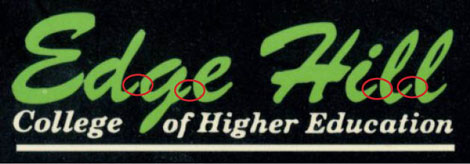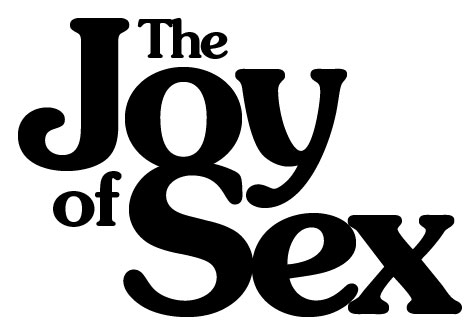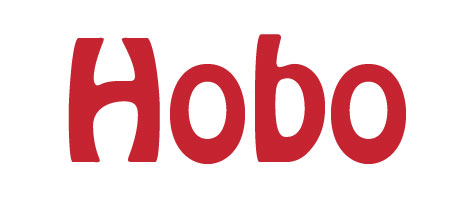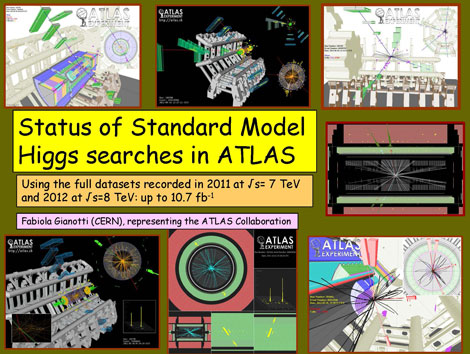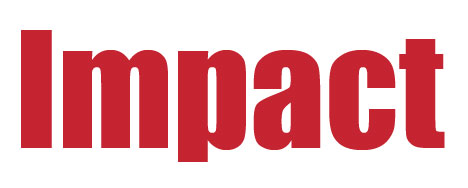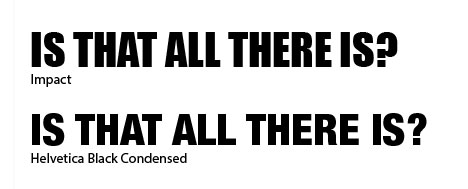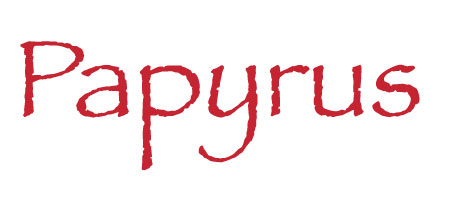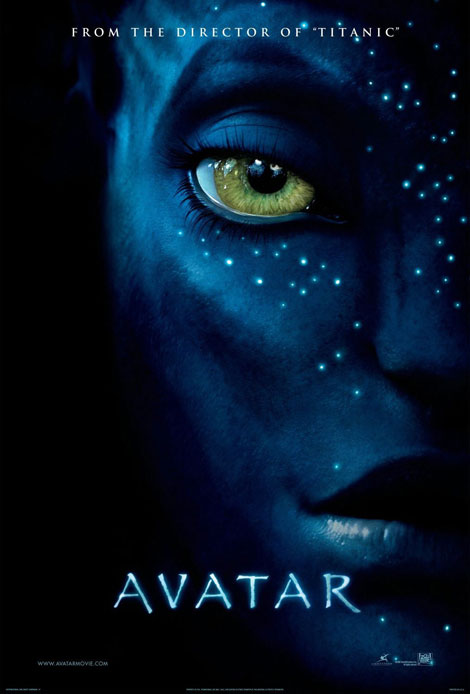
Bad Fonts
Come explore the Dark Side of the Fonts.
Type “Bad Fonts” into a search engine and you’ll get back a long list of web pages and blogs discussing the authors’ most hated fonts. For the most part, these “worst of” lists are good-humored, sometimes tongue-in-cheek, but some are quite angry, bordering on vitriolic (“these people need to be rounded up and shot”) as if their authors have been personally affronted by the ill-considered type choices of amateur designers.
Public enemy number one is Comic Sans, often considered in a league of its own when it comes to bad type. Designed in 1995 for Microsoft, Comic Sans was a functional response to a design problem—to replace the inappropriate use of Times New Roman in speech bubbles in Microsoft Bob, a beta software aimed at young users. Ultimately it wasn’t ready in time for the release of Microsoft Bob, but was released in the Windows 95 Plus Pack. Later, it became one of the system fonts for Windows 95 and subsequent versions of both Windows and Mac OS. Its creator, Vincent Connare (he also designed the highly respected screen typeface Trebuchet), could not in his wildest dreams have foreseen the use to which it would be put: sports team jerseys, all sorts of branding, and yes, even gravestones (not discounting the possibility that this may be Photoshopped). As an instinctive supporter of the underdog, I feel sorry for Comic Sans. It means no harm. One could argue that it’s friendly. And its ubiquity, the very thing that makes it so hated, makes it more readable. If we subscribe to Zuzanna Licko’s common sense premise that “we read best what we read most,” then Comic Sans has to rate highly. If there are no bad fonts, just fonts used inappropriately, then there must be appropriate usages
of Comic Sans—and not just those that are ironic. In fact, it has become highly regarded for its legibility by dyslexia coaches. The website of the British Dyslexia Foundation includes in its style guide for dyslexic-friendly text: “Use a plain, evenly spaced sans serif font such as Arial [or] Comic Sans.” Elsewhere it goes on to temper this advice: “However, some dyslexic adults consider [Comic Sans] looks childish,” whilst still recommending it as a good choice for dyslexic children. Last July when CERN announced the discovery of new particle consistent with Higgs boson, most jaw-dropping for some was the use of Comic Sans in the scientists’ PowerPoint presentation. Science and Comic Sans seem like unlikely bedfellows, but perhaps—and just to play devil’s advocate—the very seriousness and inscrutability of the topic make Comic Sans a clever choice rather than a massive design faux pas.
Comics Sans was used extensively in the presentation announcing the discovery of the Higgs boson at the CERN laboratory in Geneva. If you have 4 minutes to spare and fancy a chuckle, check out this funny song about Comic Sans. Obviously there are plenty of really ugly, badly designed typefaces out there, but the ones that people love to hate are those we’ve become bored of seeing—as if their choice signifies a laziness on the part of the designer which is transmitted to the reader. With typefaces, familiarity can all too easily cross over into contempt. Here are some other often reviled typefaces:
Partly because of its name, partly because of its availability, Impact (designed by Geoffrey Lee in 1965) is a common choice for headlines. And as such, it works—sort of. But there are many other choices with more solidity, gravitas, and impact—and without the funny-looking question mark.
Where Impact definitely doesn’t work is when used in upper- and lowercase. Impact’s high x-height— reaching to nearly three-quarters its cap height—makes its ascenders and descenders very stubby. This, and the fact that its counters are miserly, make it an inappropriate choice for anything other than headlines in uppercase.
Designed by Chris Costello and released by Letraset in 1983, Papyrus has a rough quality like chalk or crayon, suggesting what the roman alphabet would have looked like written on papyrus 2000 years ago. The use of Papyrus on the film Avatar—not just for the poster but also for the subtitles—is a milestone in the history of inappropriate font usage, spawning several Facebook groups and prompting the “Open Letter to James Cameron from Papyrus,” which went viral: “Goodness knows I’ve worked hard the past 26 years to make a name for myself. And it’s felt great coming to the aid of New Age spa owners, suburban party planners, and young couples looking to save money by making their own wedding invitations. But only now, by appearing in your movie, have I been given mainstream, high-level recognition as a serious typeface. And for that, I thank you.”
The Papyrus-Avatar connection also drove Ryan Gosling to distraction in this funny Saturday Night Live skit. Papyrus is not a bad font on its own, but is so clichéd and overused that its selection for a no-expenses-spared Hollywood blockbuster seems bizarre. Even its creator got tired of it: “At first it was cool to see it in a few spots, especially CD cover designs and movie credits … then television, billboards, etc. […] But then I started seeing it in homespun newsletters, bulletin boards, everybody’s business cards, real estate and mortgage ads … basically everywhere … It had become diluted and lost its original appeal.”
Often cited as being “accessible” for screen typography, to some designers Arial has the stigma of “default” or unconsidered choice. Arial was developed by Microsoft to avoid licensing issues with Helvetica, which used to suffer similar image problems, but got an unexpected makeover when Gary Hustwit made it the subject of his 2007 documentary. Since then, Arial has, to sniffy designers, felt like Helvetica’s poor cousin, available in fewer variants, without the cachet of Swiss sophistication, and, though the differences are subtle, lacking the grace of its Helvetian muse. Accessible it may be, but so are scores of other typefaces. Somehow there is a perception by accessibility advocates that Arial is alone in having this attribute.
There’s an interesting “spot the difference” quiz on Ironicsans.com, where 20 famous logos that use Helvetica have been changed to Arial. Tip: look for the horizontal slicing of the lowercase letters. That’s Helvetica.
Designed by Robert E. Smith in 1942, Brush Script emulates handwritten letters painted with an ink brush. Think of Brush Script and maybe you think of corporations and government bodies trying to persuade you to do something in a “friendly” non-corporate way. Since it became a default font on both Window and Mac OS, it has also been used to death in flyers and invitations to try to convey informal handwriting. But like all other script fonts, it never fools you: it looks computer generated because every a is like every other a, every b like every other b, and so on. Brush Script’s problem (as well as its strokes being too thick) is that since it gets used more often in this way it inevitably fails more often.
That said, if you have, as I do, a fondness for government information posters, you can’t help but have a soft spot for Brush Script, and it remains popular with those wanting a nostalgic hand-painted sign look. To evoke a bygone era, Brush Script can be effective—so long as the characters really do connect as they were intended, and so long as it’s not used in ALL CAPS!